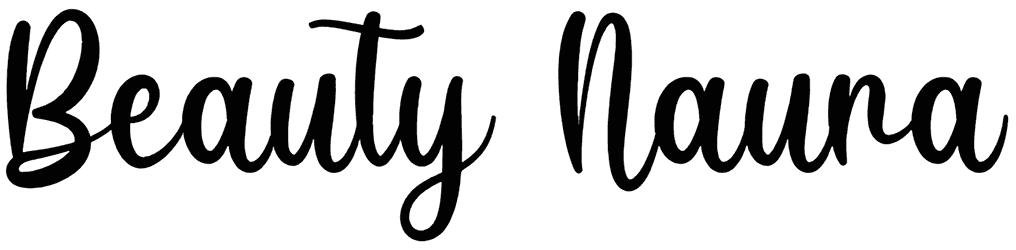
Beauty Naura Font
Beauty Naura is one of those fonts that help you give your wrists a break from trying to perfect your skills to find the best-handwritten design for website graphics, logos, and branding.
This script font is an ideal option for designers interested in personal spaces in the digital world and who want to use human nature to validate a brand. With this invitation font, you can give your writings attractive twists that aren’t hard on the eyes and are very pleasant.